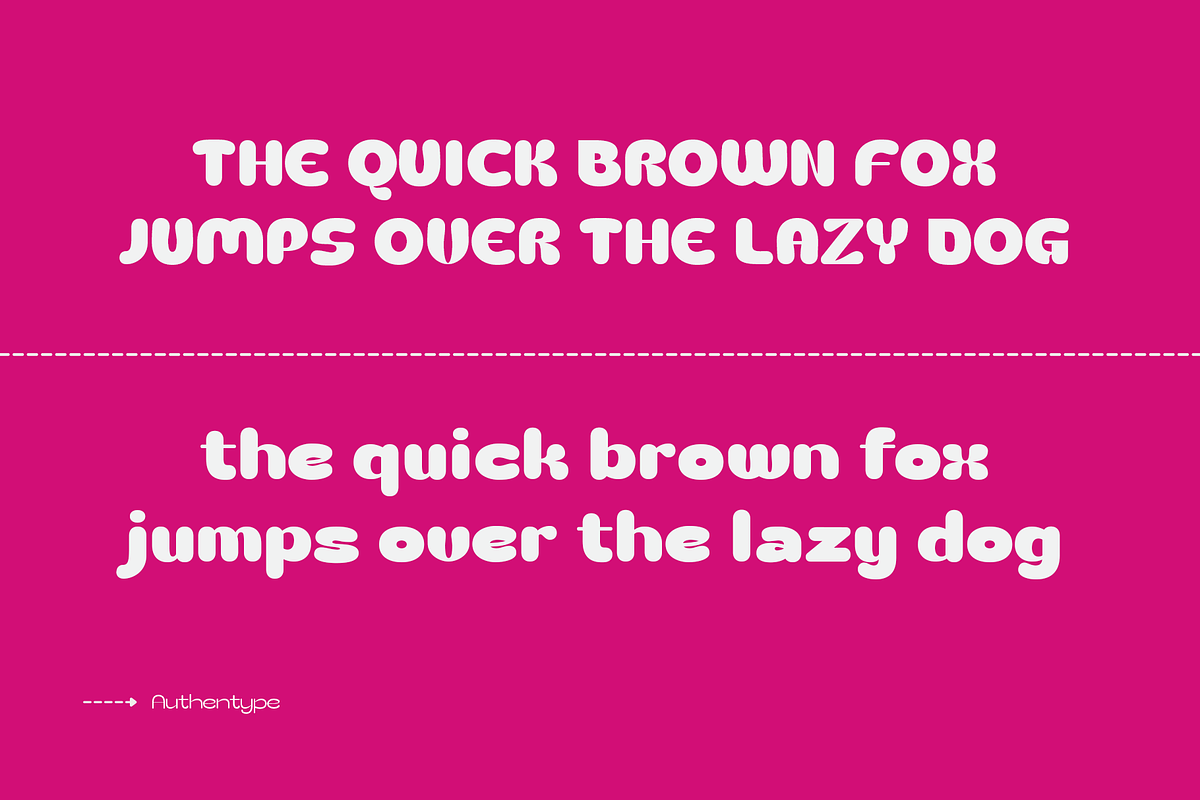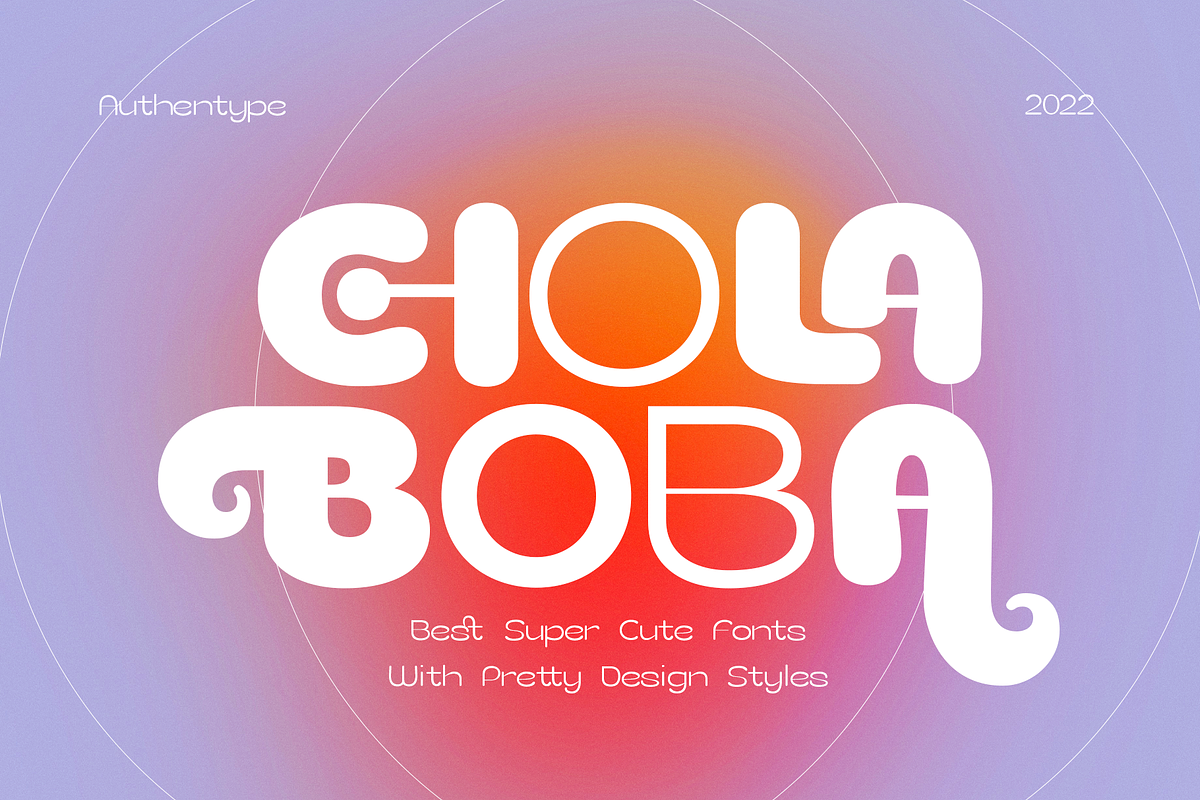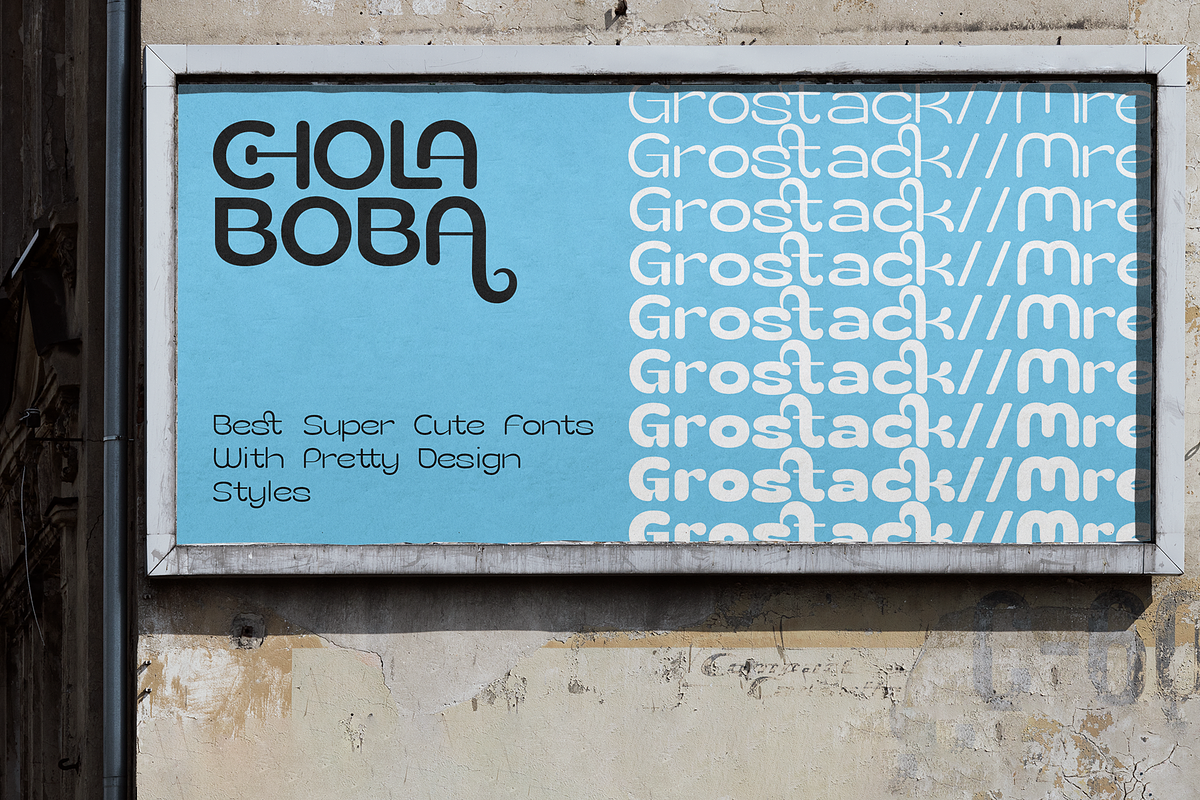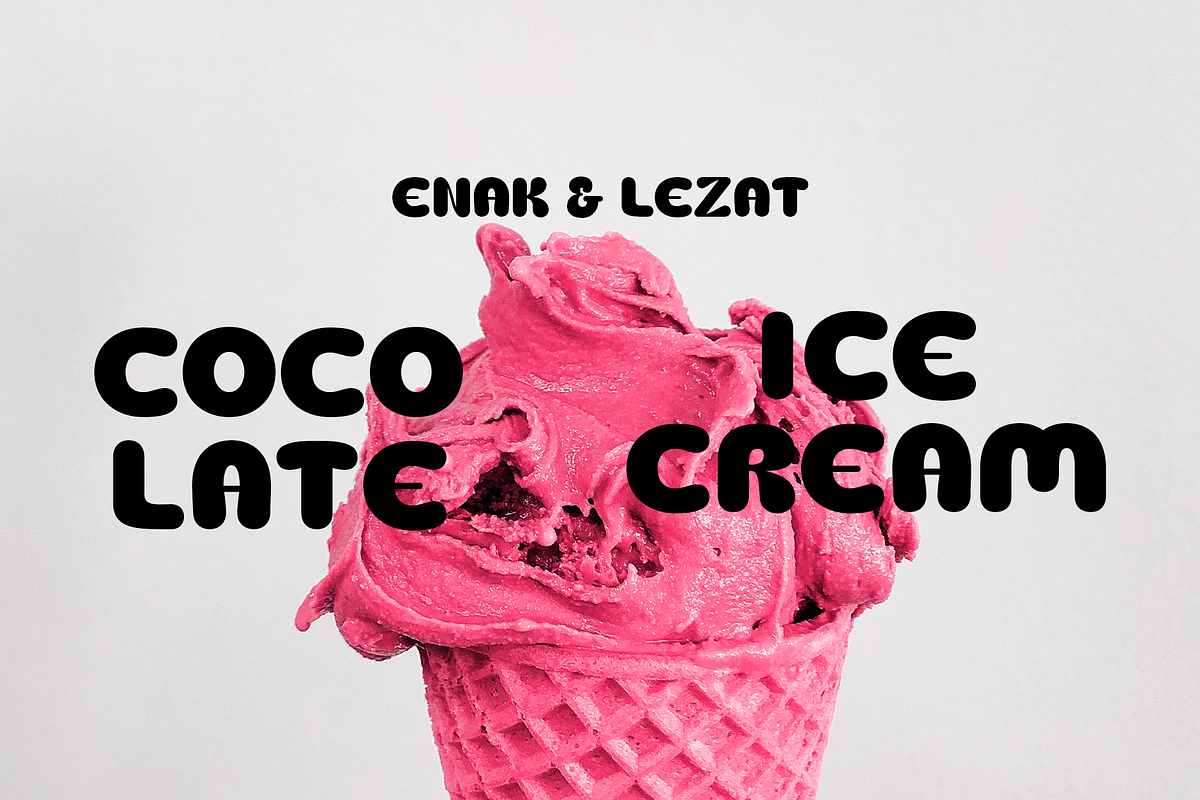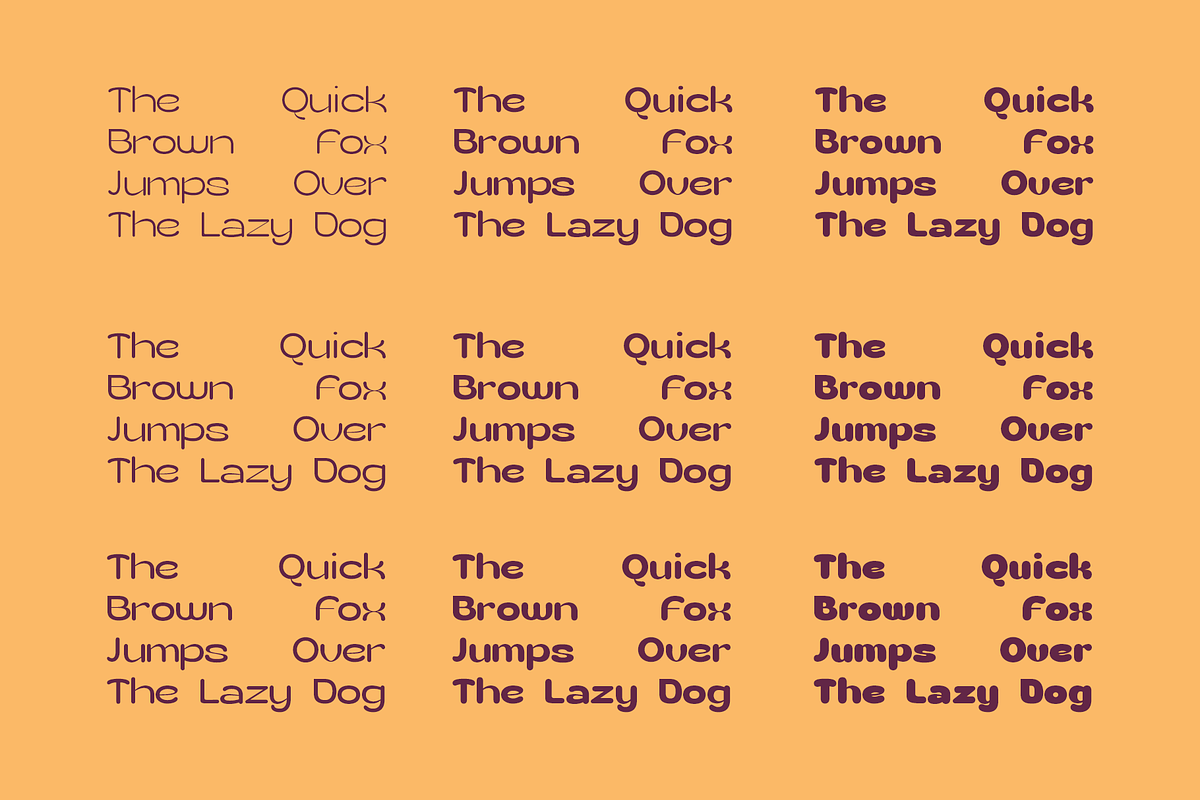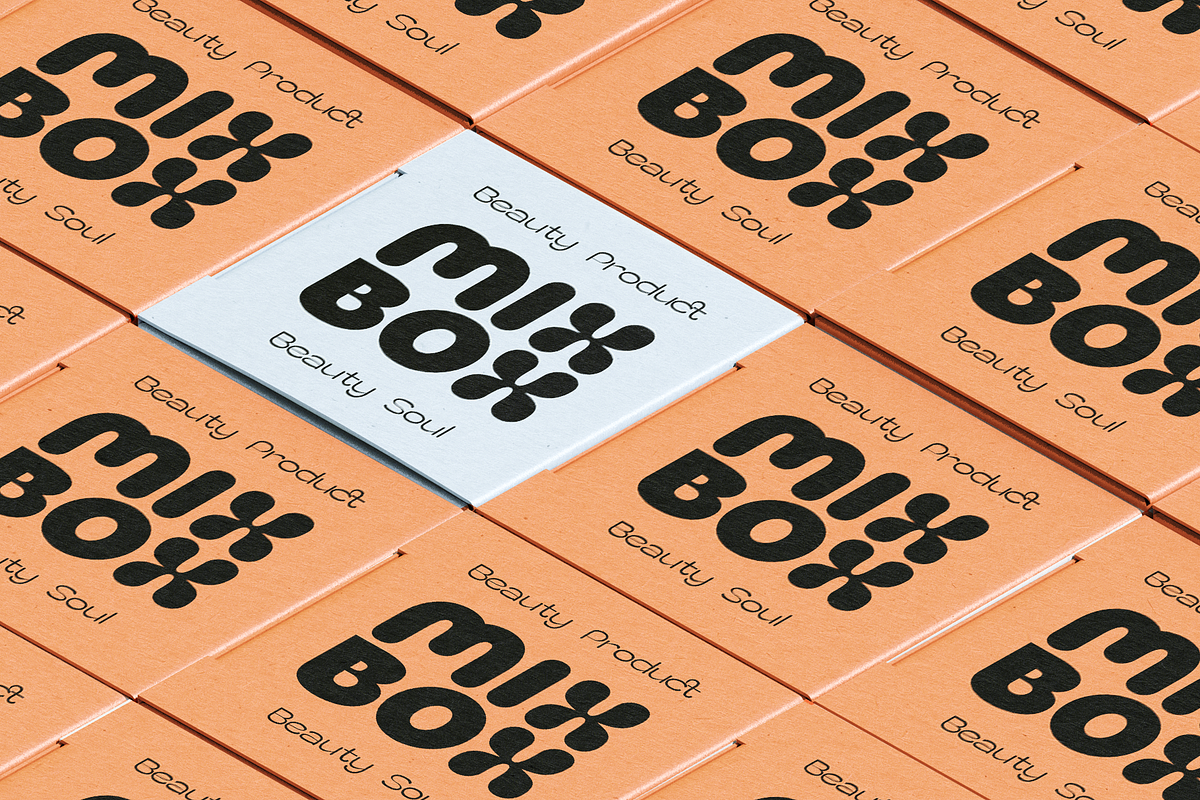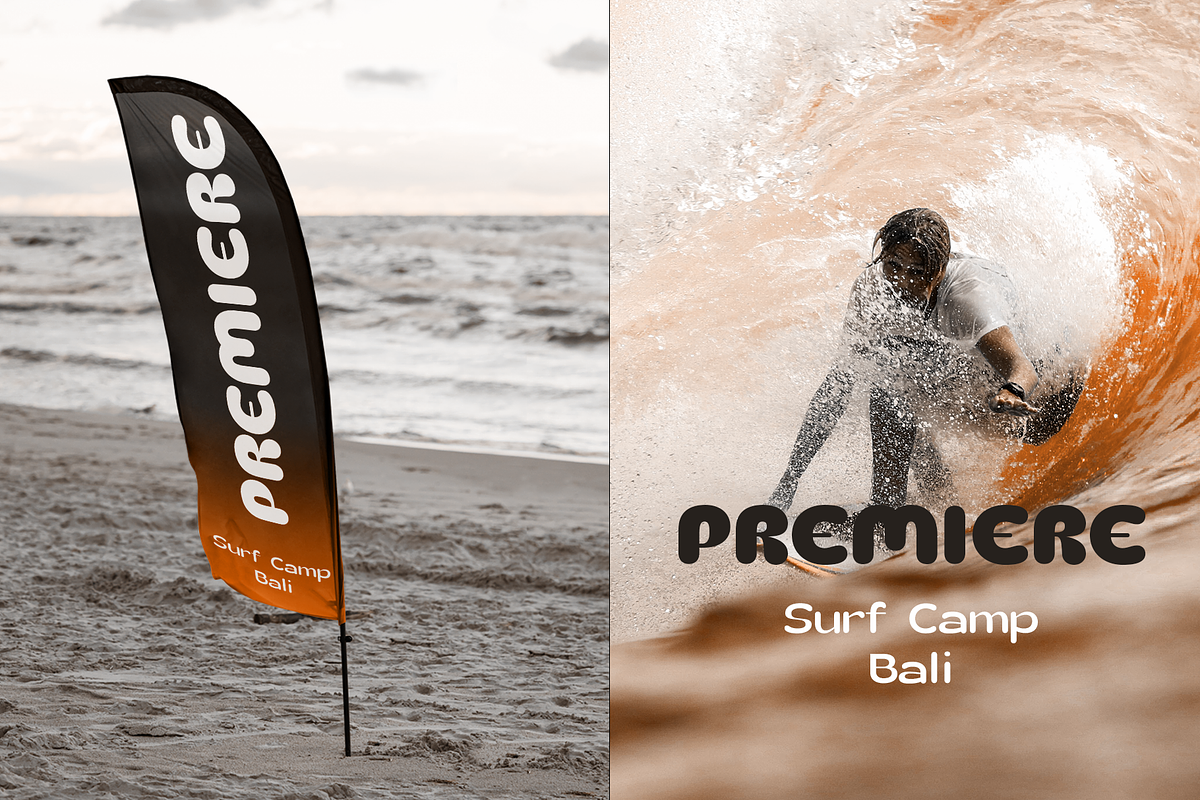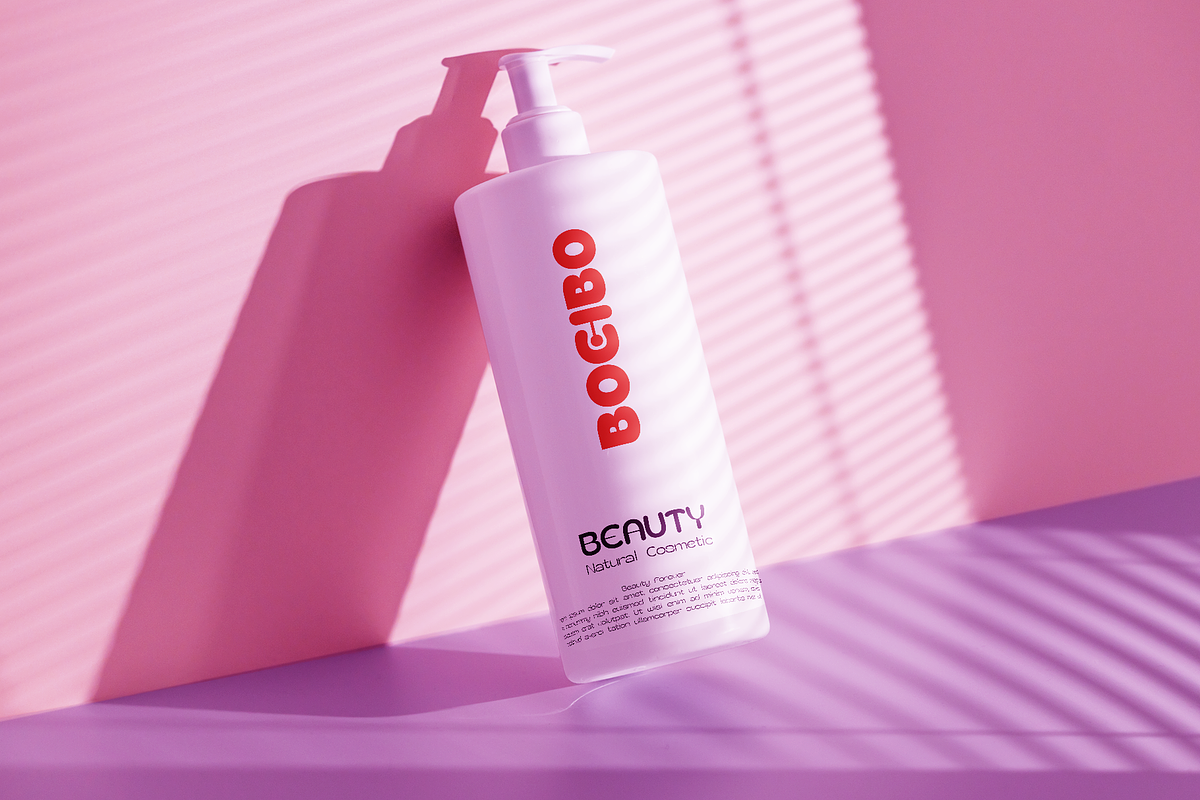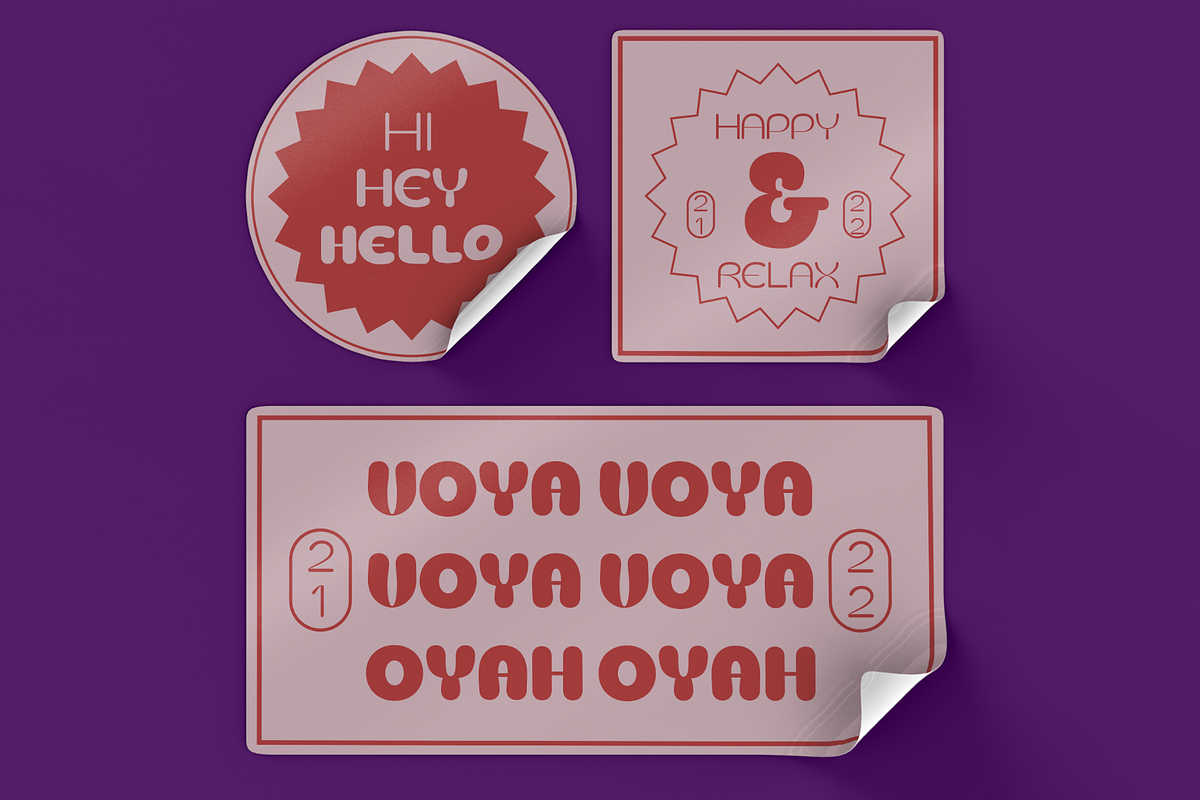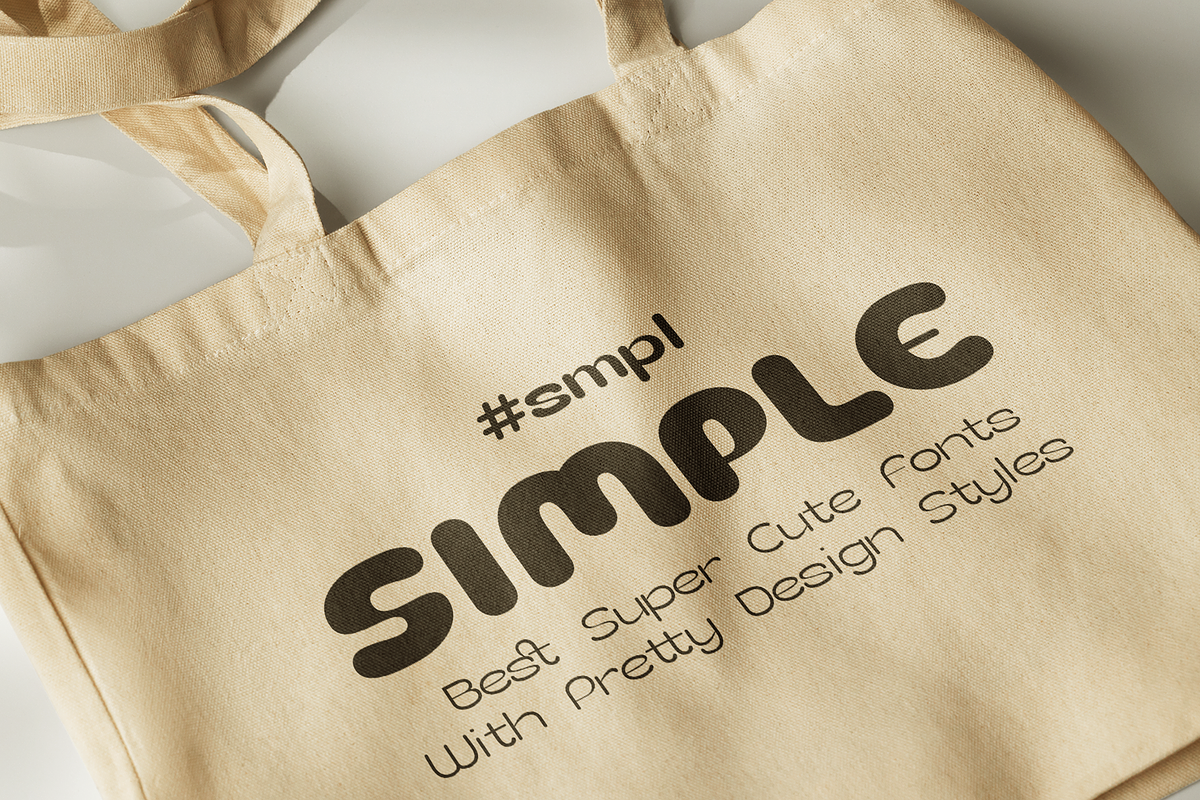
Chola Boba is a friendly font
Chola Boba is a friendly font with an innocent and youthful look. This font has best for a lot of print, digital, and net designs.
Chola Boba is a font it really is best for any layout project. It is available in nine unique weights with a contented sans serif style. This font will make your textual content readable & without problems recognizable for your audience. So move ahead, use Chola Boba in your subsequent project!